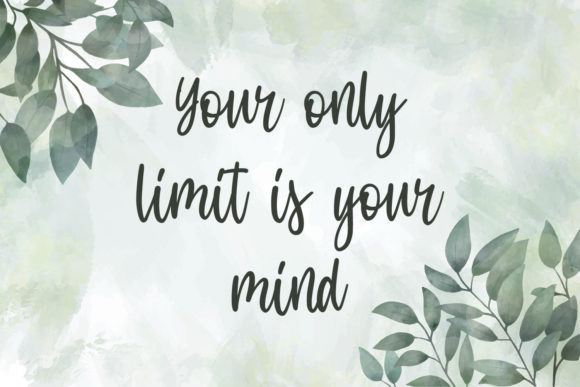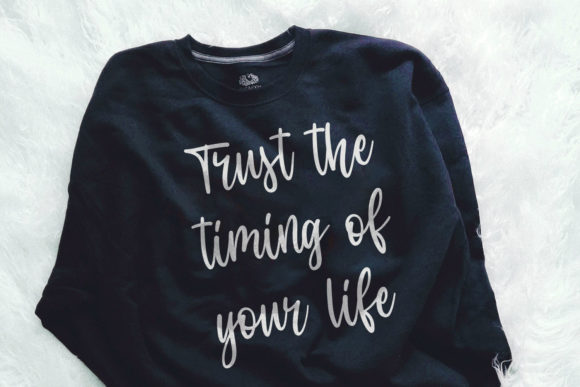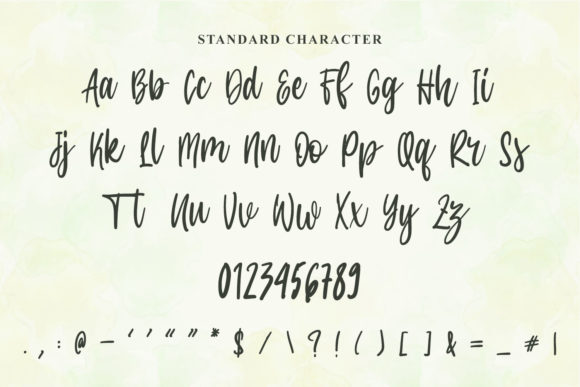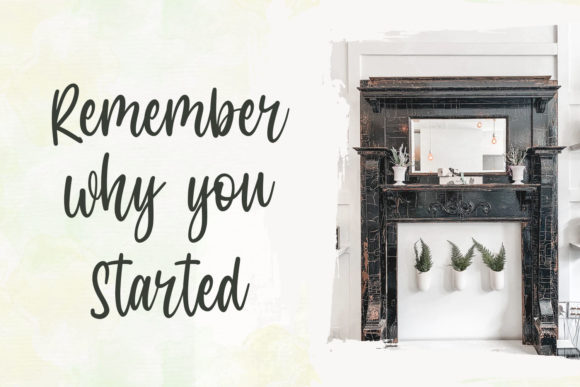
Falling in Love with Amanda Jasmine Font
I’ll never forget the moment I stumbled upon Amanda Jasmine Font while working on a whimsical wedding invitation project. My client wanted a design that exuded joy, playfulness, and a touch of elegance. As I scrolled through my font library, I knew I needed something special – and then, I saw it. Amanda Jasmine Font stole my heart with its sweet, cherry-like style and beautiful script flow. In this article, I’ll share my love for this font, its features, and how you can make the most of it in your designs.
- ✨ Elegant yet playful script style that’s perfect for joyful designs
- 💕 Beautifully crafted letters with a charming, hand-drawn feel
- 🎉 Extensive OpenType features, including glyphs and stylistic alternates
While Amanda Jasmine Font is an amazing addition to any design project, there are a few things to keep in mind:
- ⚠️ Some of the more intricate details might get lost at very small font sizes
- 🤔 Limited use of bold or heavy weights, which might limit its use in certain designs
The Designer Inspiration Behind Amanda Jasmine Font
While the true story behind Amanda Jasmine Font’s creation might be a mystery, it’s easy to imagine a designer with a passion for beautiful handwriting and a love for all things whimsical. Perhaps they drew inspiration from cherry blossoms, sweet treats, or vintage stationery. Whatever the inspiration, it’s clear that Amanda Jasmine Font was crafted with love and a desire to bring joy to designers and their projects.
| Font Name | Amanda Jasmine Font |
| Author | creakokunstudio |
| Q: What type of projects is Amanda Jasmine Font best suited for? | A: Amanda Jasmine Font is perfect for designs that require a touch of elegance and playfulness, such as wedding invitations, social media posts, and stationery art. |
| Q: Does Amanda Jasmine Font support OpenType features? | A: Yes, Amanda Jasmine Font has extensive OpenType features, including glyphs and stylistic alternates, which can add more creativity and variety to your designs. |